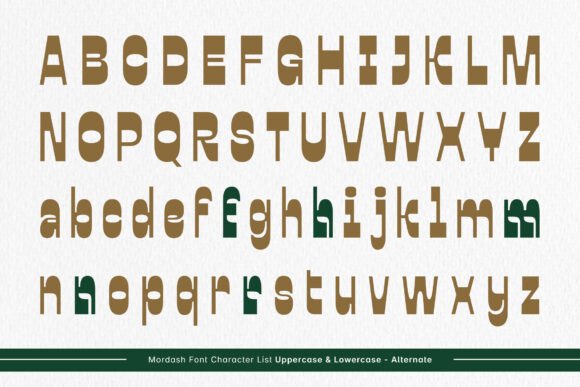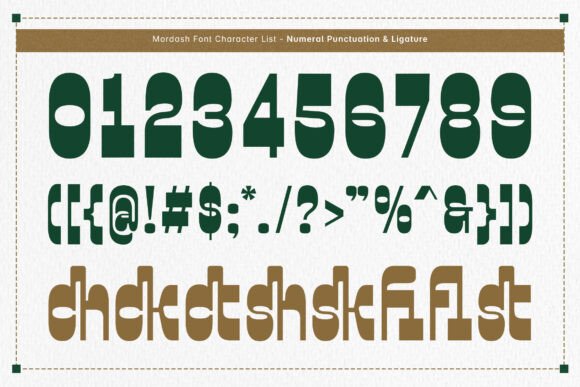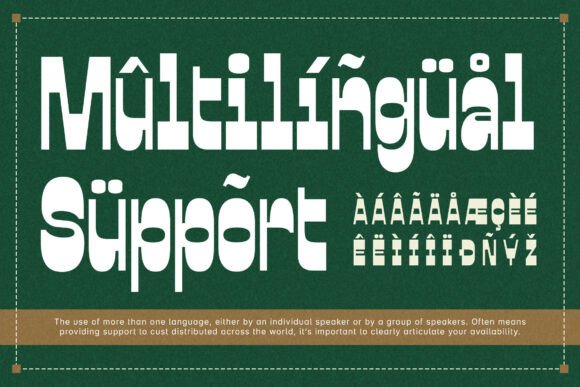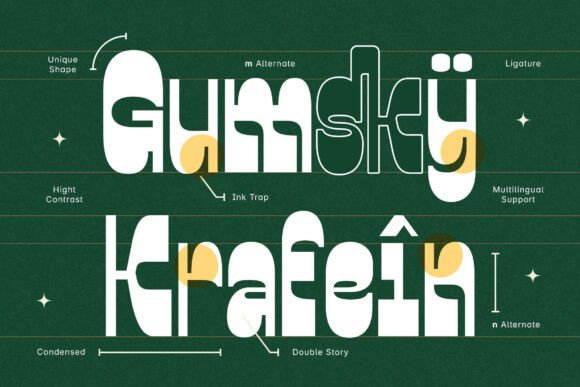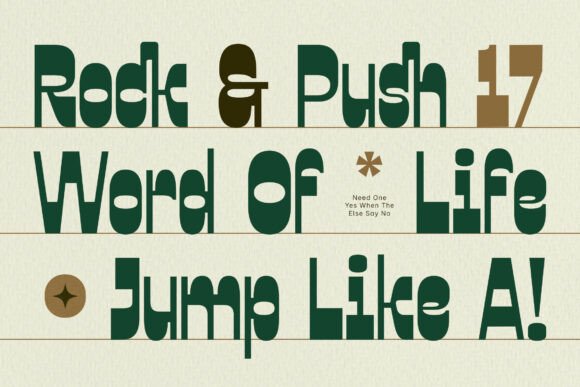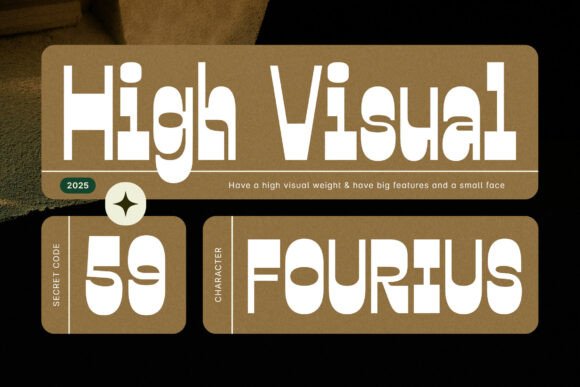
Introduction to Mordash Font
Mordash – Bold Retro Condensed Tall Reverse Contrast – Modern Logo Sans Display Font Mordash is Bold Retro Condensed Tall Reverse Contrast font that immediately transports your design back to the fun, Groovy style of the 80s.
This unique display Sans typeface features a distinctive Reverse Contrast, with tall and Condensed structure, combined with smooth Rounded terminals, making it perfect for high-impact display use, such as branding, logo designs, compelling poster campaigns, It’s particularly well-suited for the hospitality industry, elevating the aesthetic of cafes and coffee shops, as well as creative packaging, and any projects that require a touch of Modern, Vintage and Retro Mordash delivers an unmistakable retro charm while maintaining a clean, bold presence.
Key Features of Mordash Font